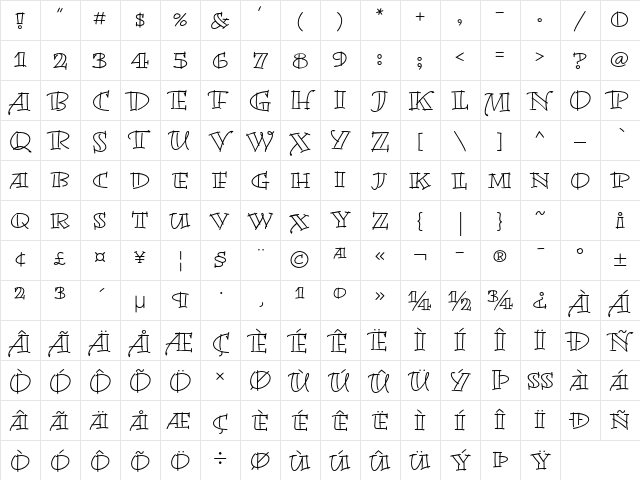
Complete Bermuda LP Std Open glyph index. Displaying only characters natively supported by Bermuda LP Std Open font.
Bermuda LP Std is a composed and adaptable typeface that performs quietly and consistently across a wide range of design contexts.